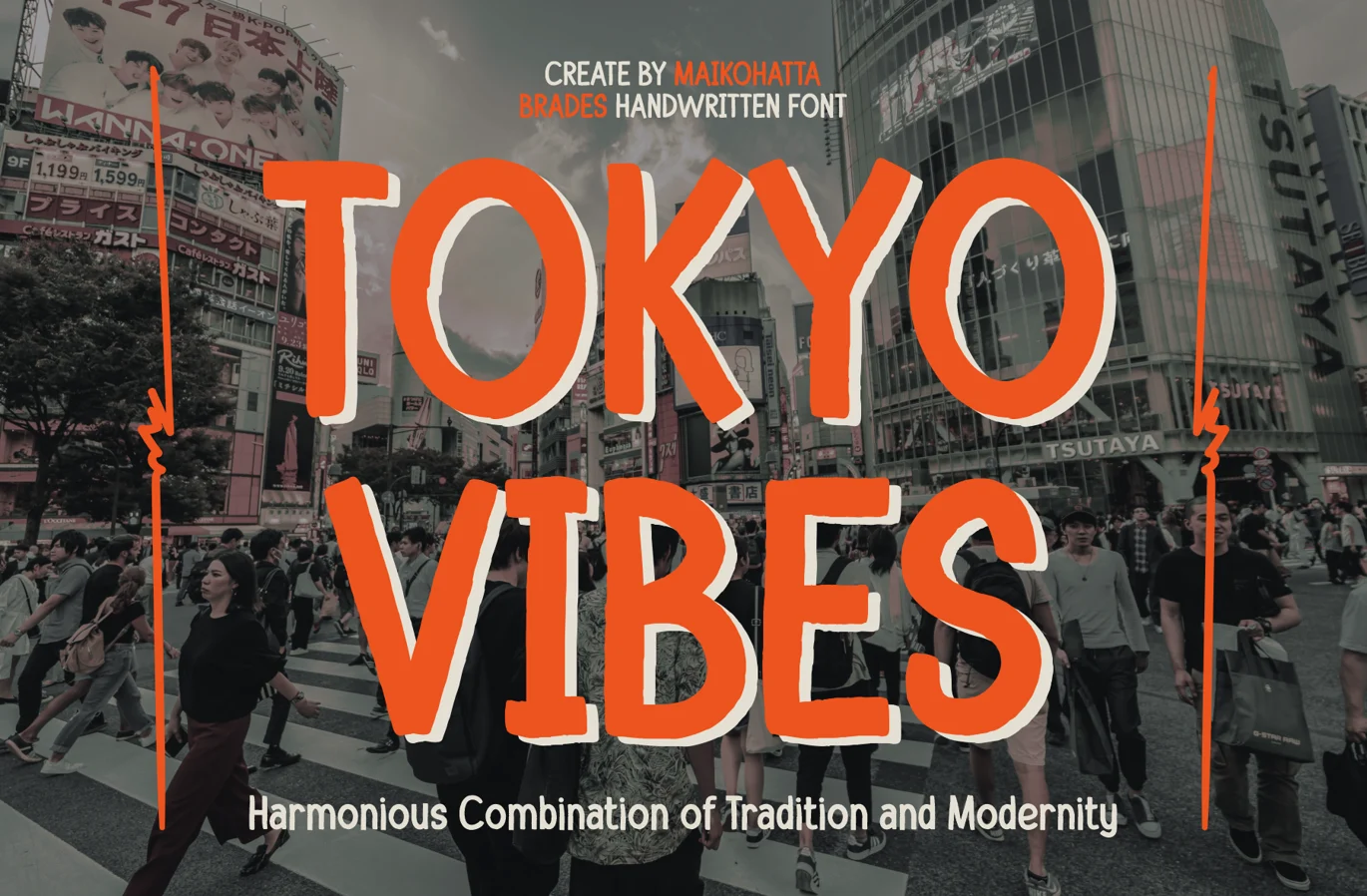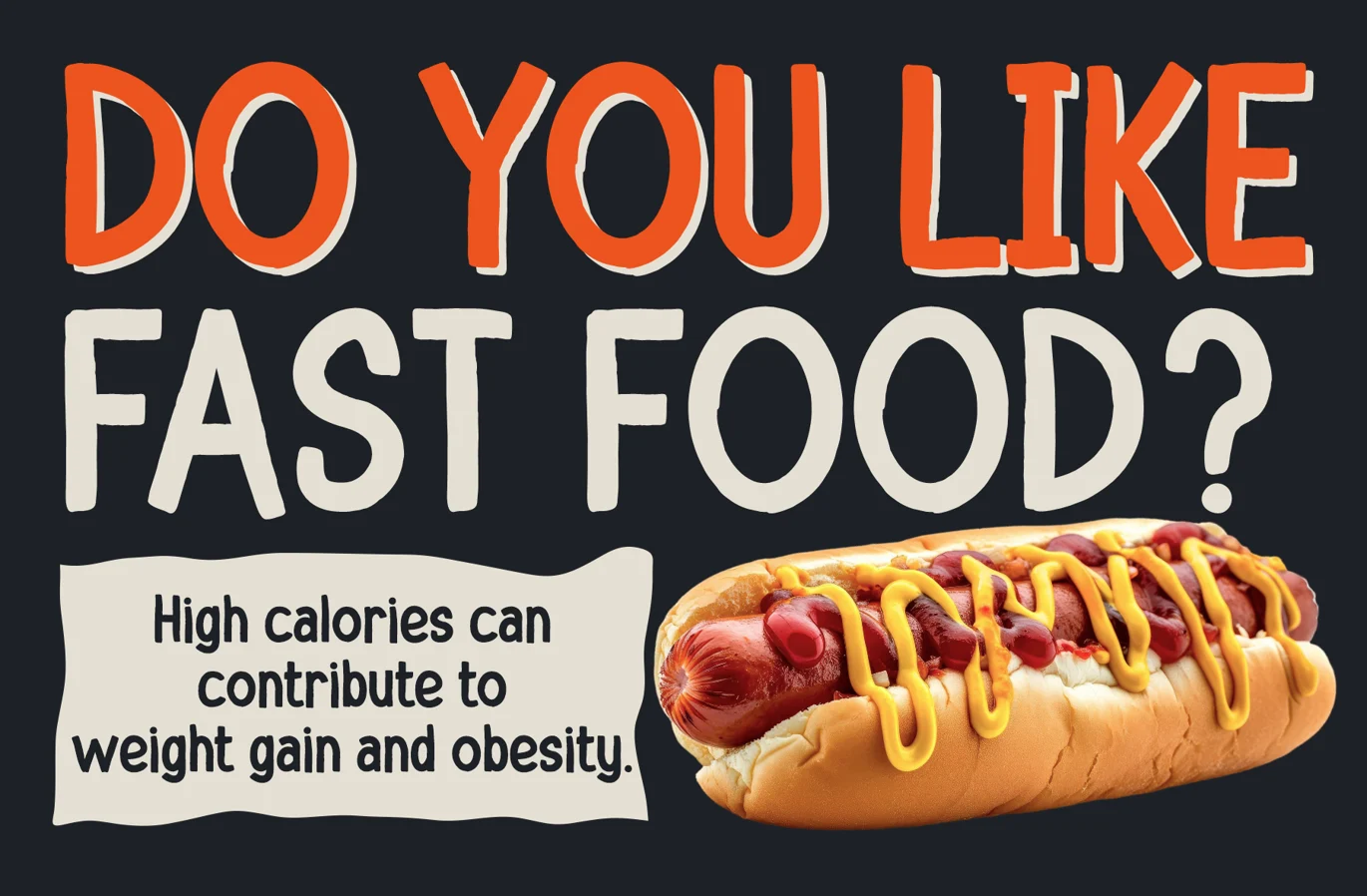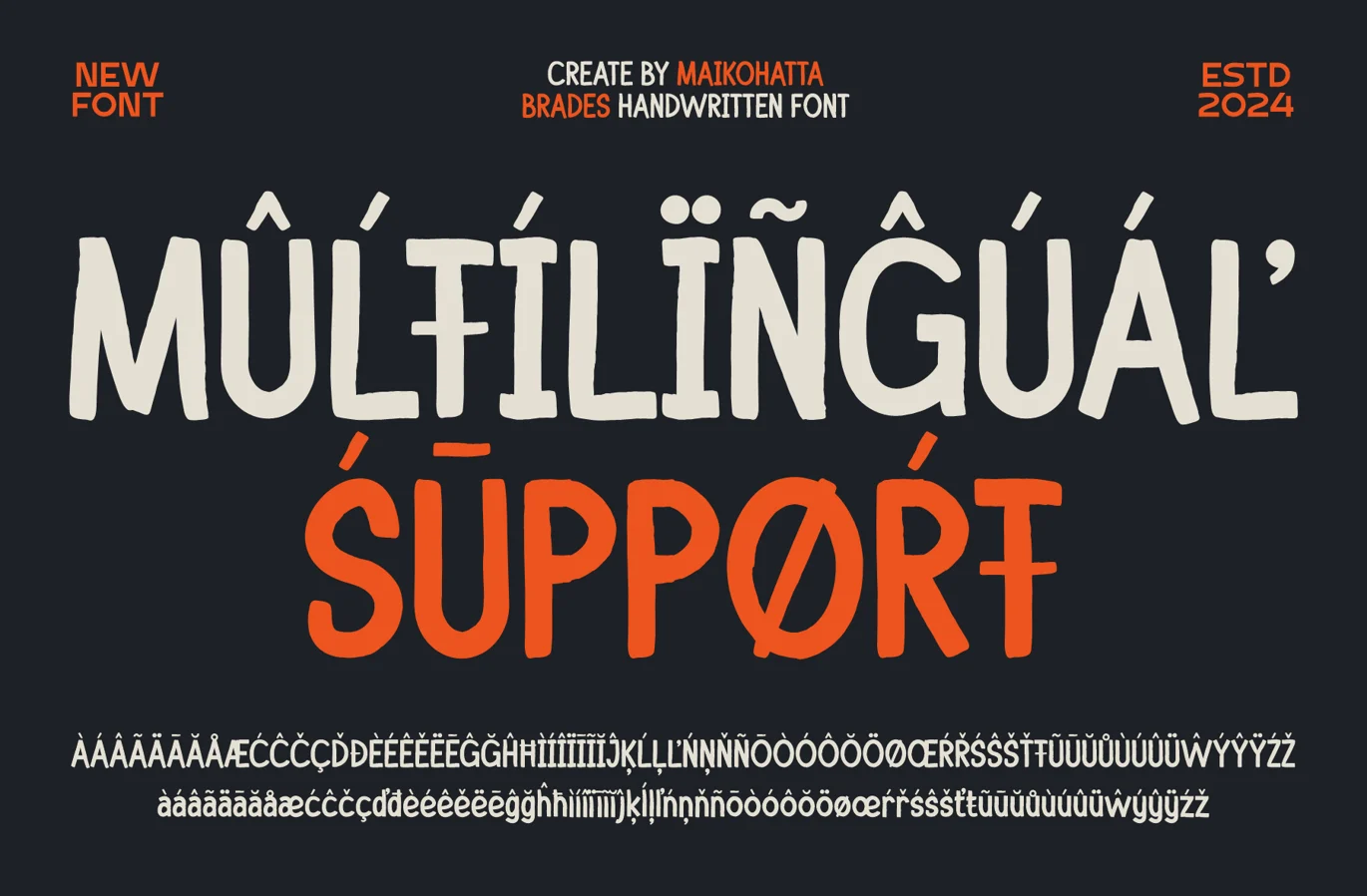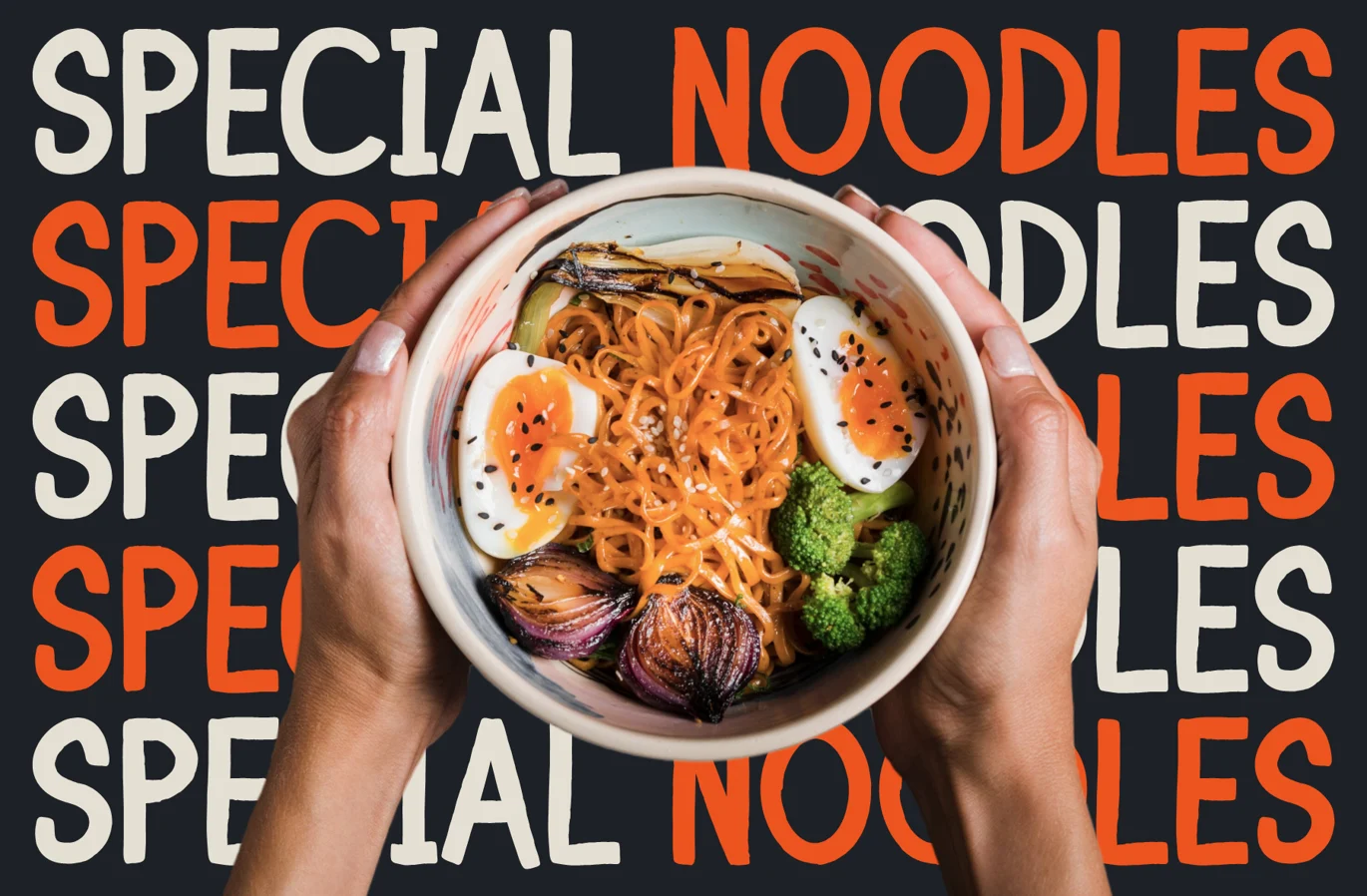
Brades – Handwritten Typeface Font
Introducing our new product Brades - Handwritten Typeface
Brades - is a very flexible choice and can be used in a variety of design contexts. Its ability to provide a clean, professional, contemporary look and its simplicity and visual appeal make this font good for use in the world of graphic design and modern typography.